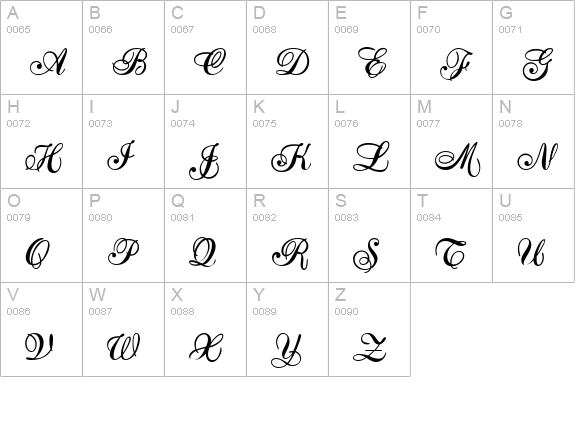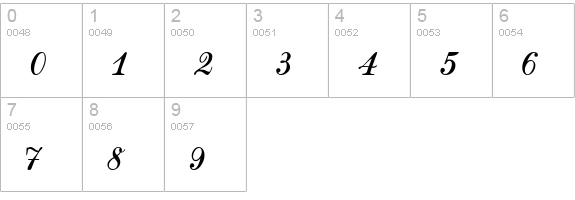
ViceroyJF Font Details
Introducing ViceroyJF, a beautifully crafted font that exudes elegance and sophistication. With its delicate curves and refined letterforms, this typeface is perfect for adding a touch of class to any design project. Whether you're creating a logo, designing a wedding invitation, or simply looking to elevate your typography game, ViceroyJF is sure to impress. What sets ViceroyJF apart is not only its stunning aesthetics but also its accessibility. This font is available for free download at FontsMarket.com, making it accessible to designers and creatives of all backgrounds. Now, you can enjoy the timeless beauty of ViceroyJF without breaking the bank. The versatility of ViceroyJF is another standout feature. Its clean and legible design allows it to be effortlessly paired with both serif and sans-serif fonts, making it a versatile choice for various design projects. From headlines to body text, ViceroyJF delivers exceptional readability and visual impact. The attention to detail in ViceroyJF is truly remarkable. Each letter has been meticulously crafted to create a harmonious balance between elegance and legibility. The result is a font that not only catches the eye but also ensures a seamless reading experience, even at smaller sizes. Whether you're a seasoned designer or just starting out, ViceroyJF is a must-have addition to your font library. Its timeless appeal and accessibility make it a go-to choice for any project. Download ViceroyJF for free at FontsMarket.com and elevate your designs with this exquisite and versatile font.